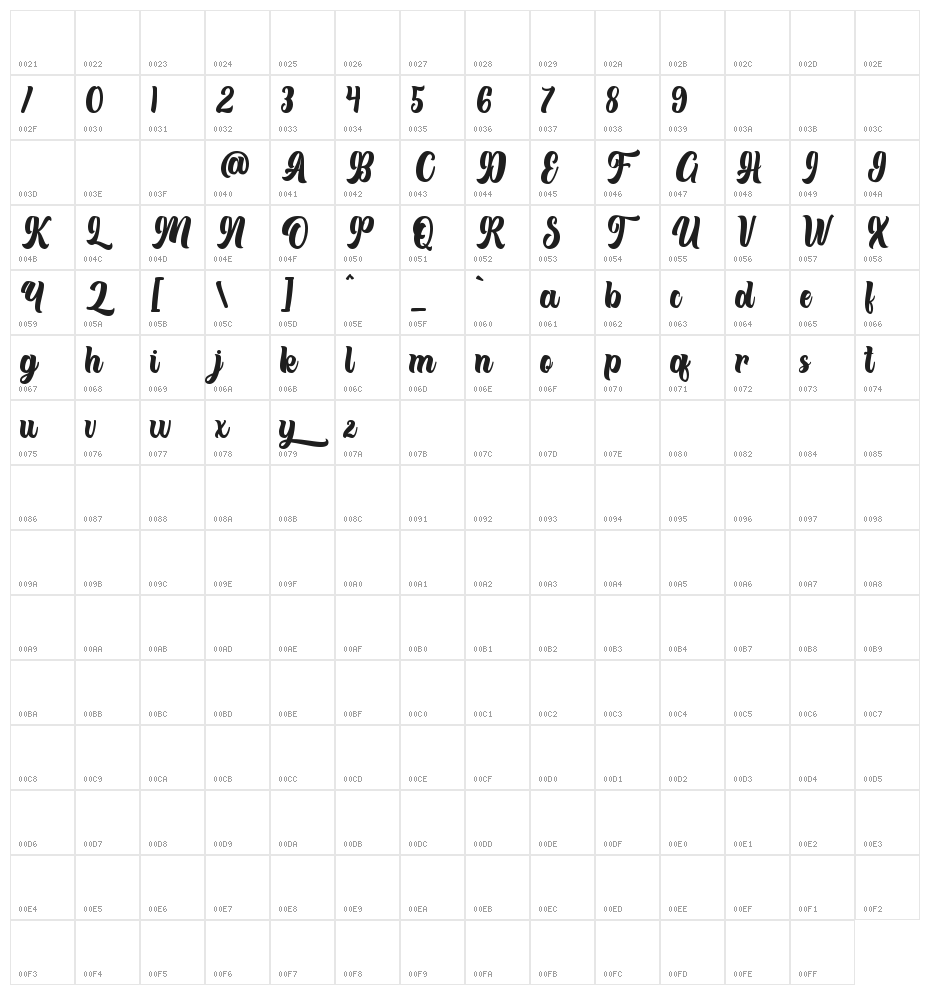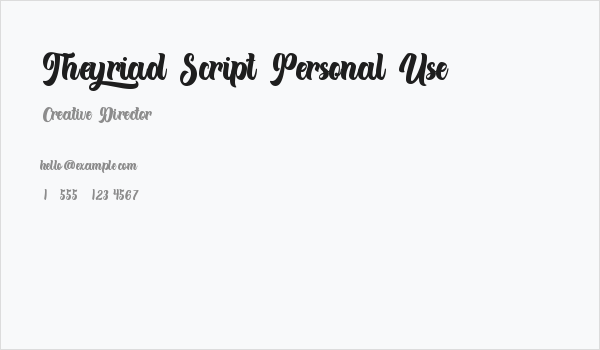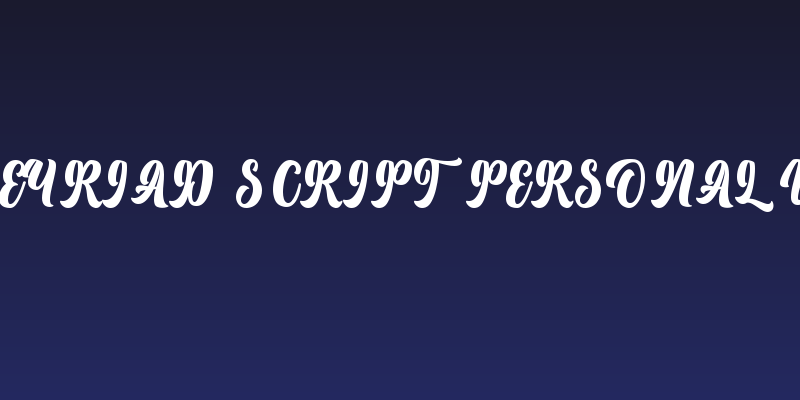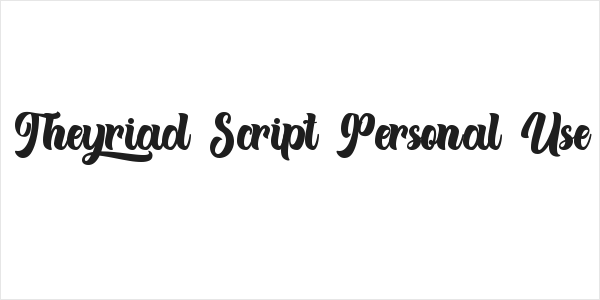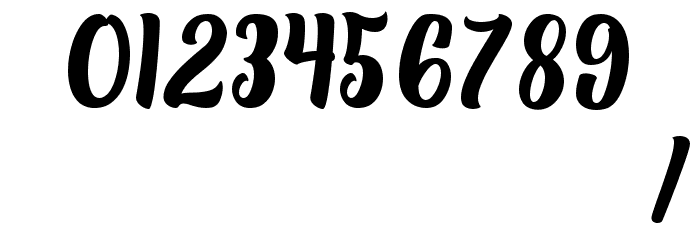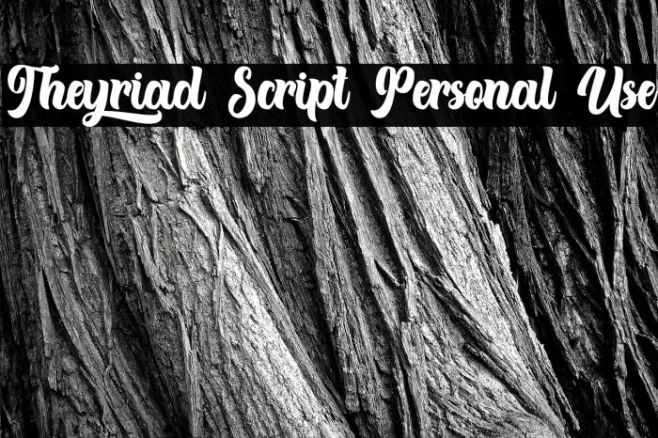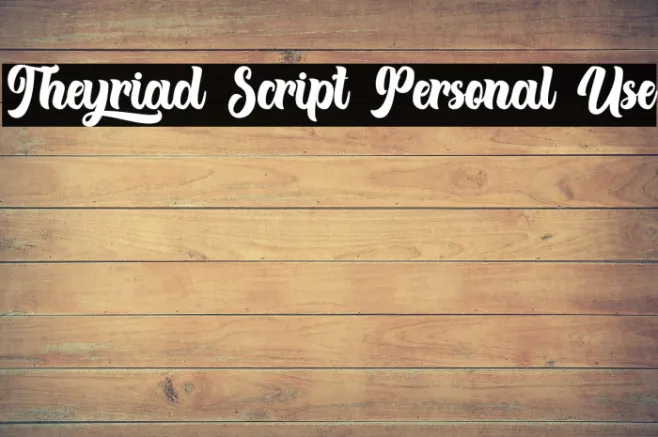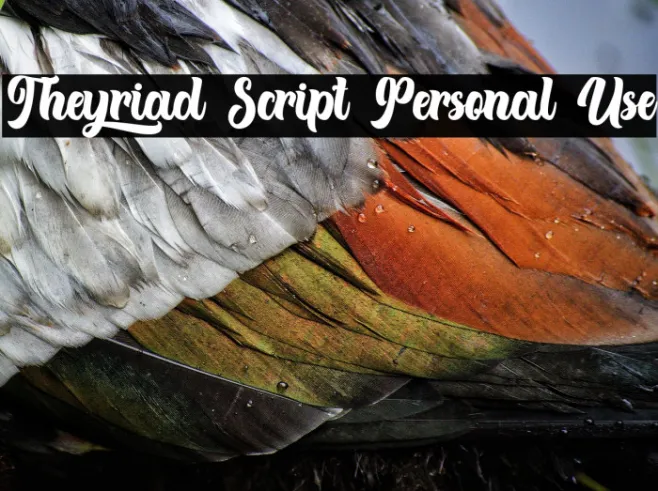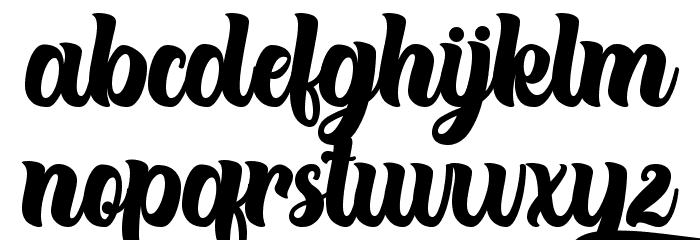
Theyriad Script Personal Use Font
Theyriad Script Personal Use Description
This font features a bold, flowing script style with elegant curves and a sense of movement. The uppercase letters are characterized by their sweeping lines and decorative flourishes, while the lowercase letters maintain a cohesive look with smooth transitions and rounded forms. The numerals are consistent with the script style, offering a harmonious blend with the alphabet. The overall appearance is both sophisticated and playful, making it suitable for a variety of creative applications. The font's design emphasizes a sense of fluidity and grace, perfect for projects that require a touch of elegance.